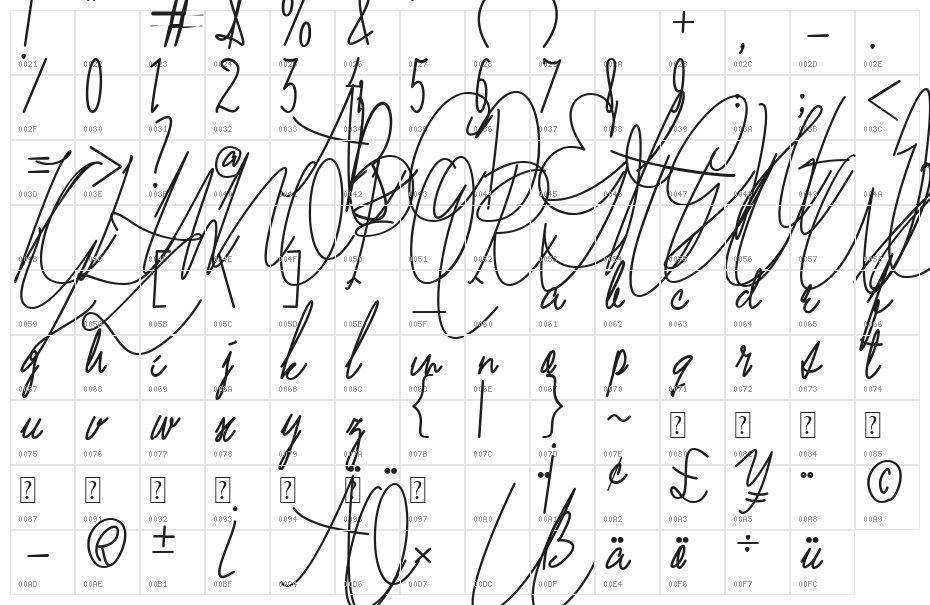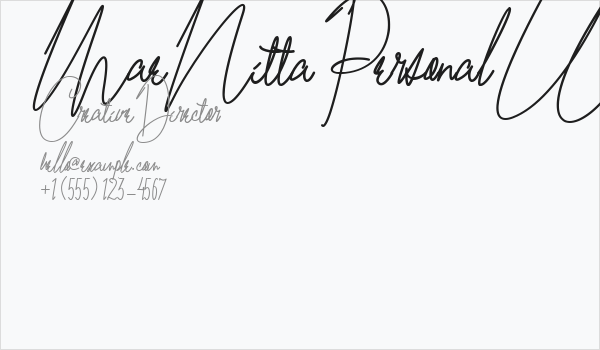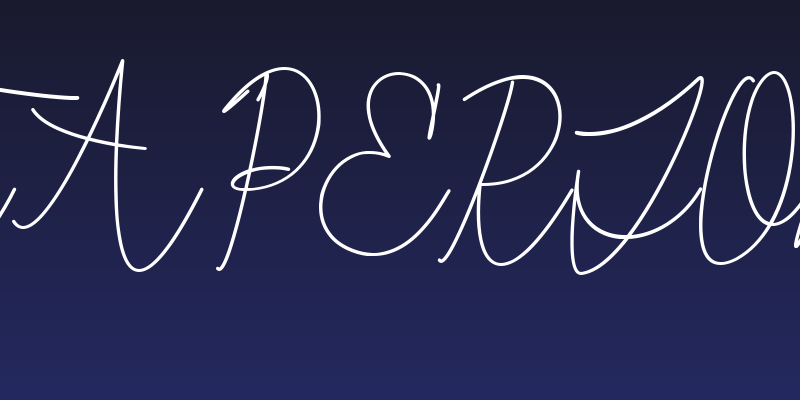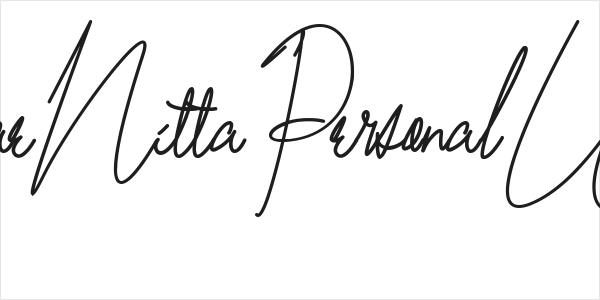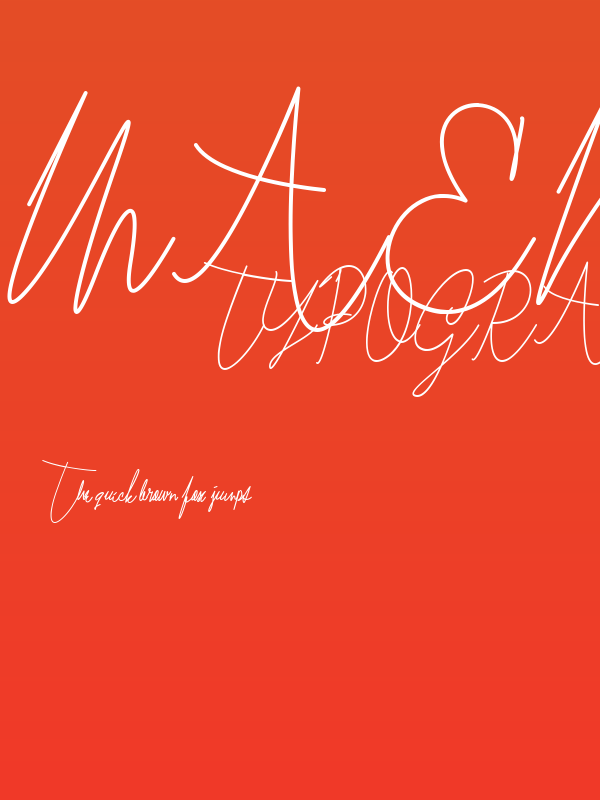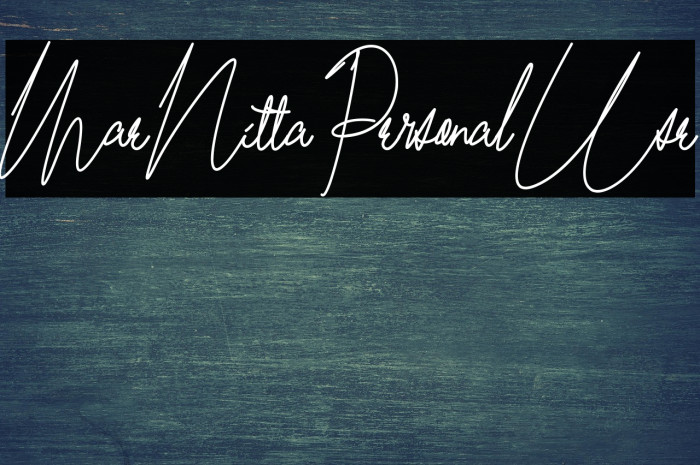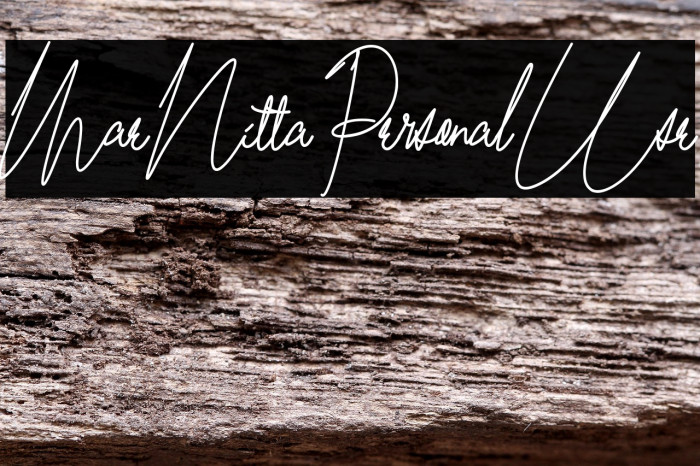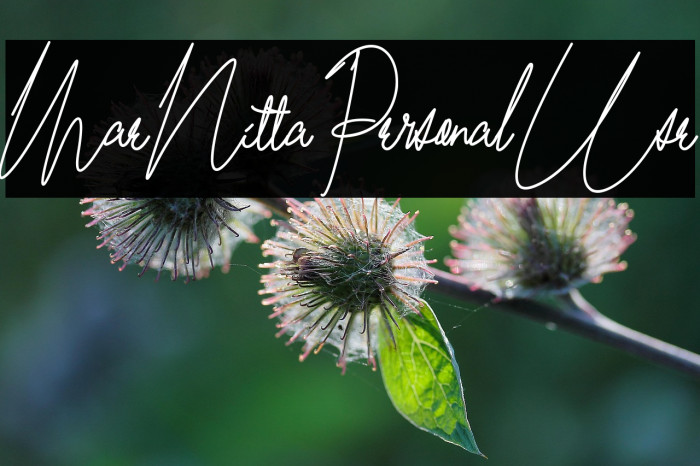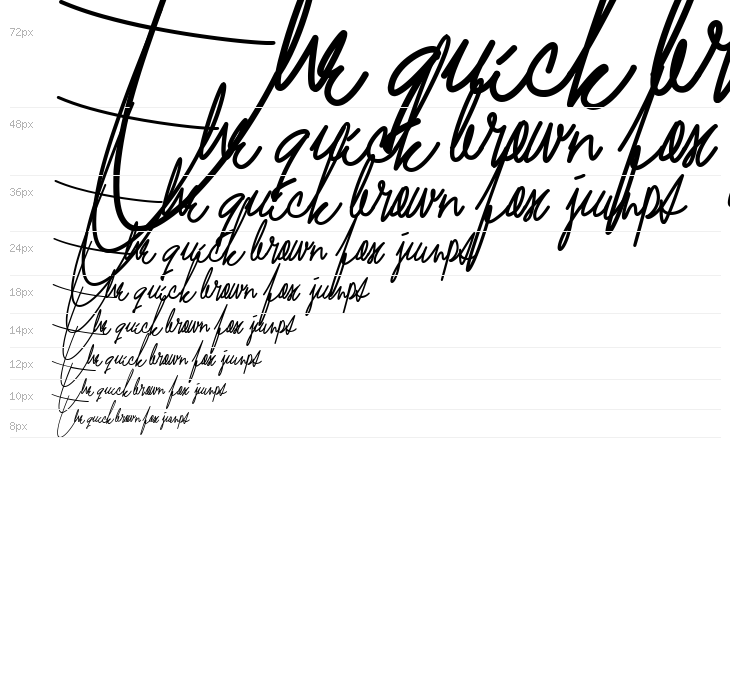
Mae Nitta Personal Use Font
Mae Nitta Personal Use Description
This font features a flowing, cursive style that mimics natural handwriting. The uppercase letters are elegant and elongated, with smooth curves and a consistent slant, giving them a sophisticated and graceful appearance. The lowercase letters maintain the same fluidity, with some characters connecting seamlessly, enhancing the handwritten feel. The numbers are distinct and easy to read, with a slight slant that matches the overall style. Special characters are creatively designed, maintaining the font's cohesive look. This font's overall aesthetic is both artistic and legible, making it suitable for a variety of creative applications.